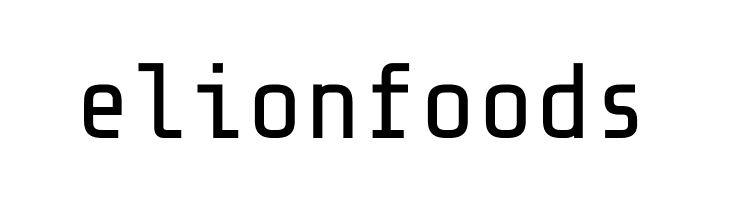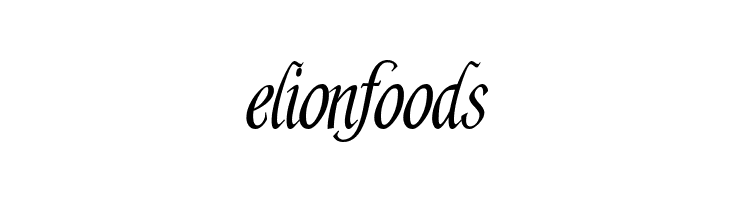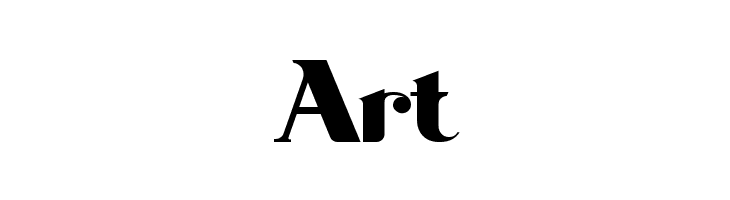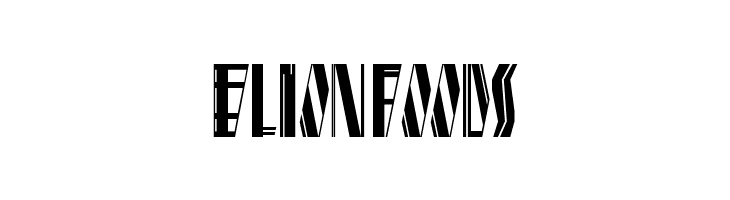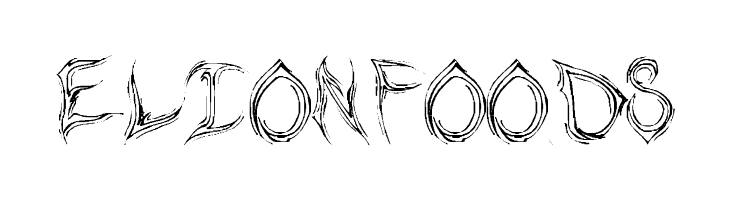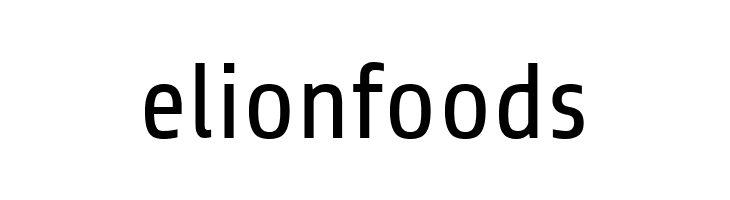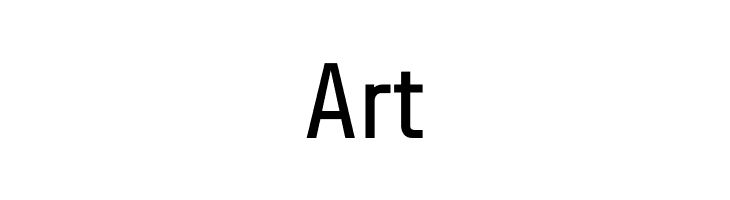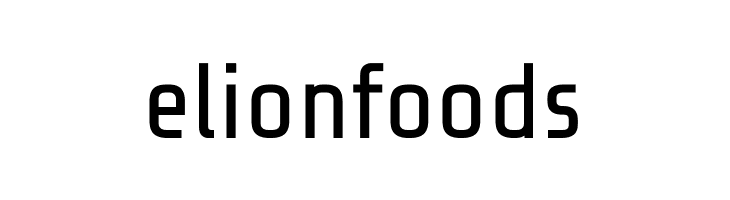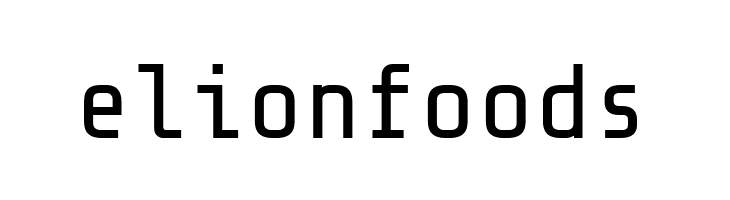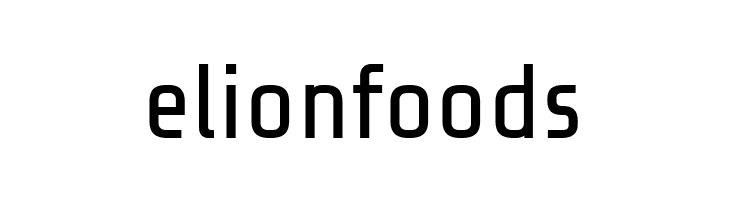
A bold, geometric font with a futuristic and modern style.
A bold, high-contrast serif font with a modern twist.
A playful and elegant script font with flowing cursive design and whimsical flair.
A flowing, elegant script font with ornate swashes and flourishes.
A bold, geometric font with sharp, angular lines and high contrast.
A modern, geometric sans-serif font with clean lines and excellent readability.
A clean and modern sans-serif font with balanced proportions and clear readability.
A modern, geometric sans-serif font with clean lines and uniform width.
A modern, monospaced font with a technical and futuristic style.